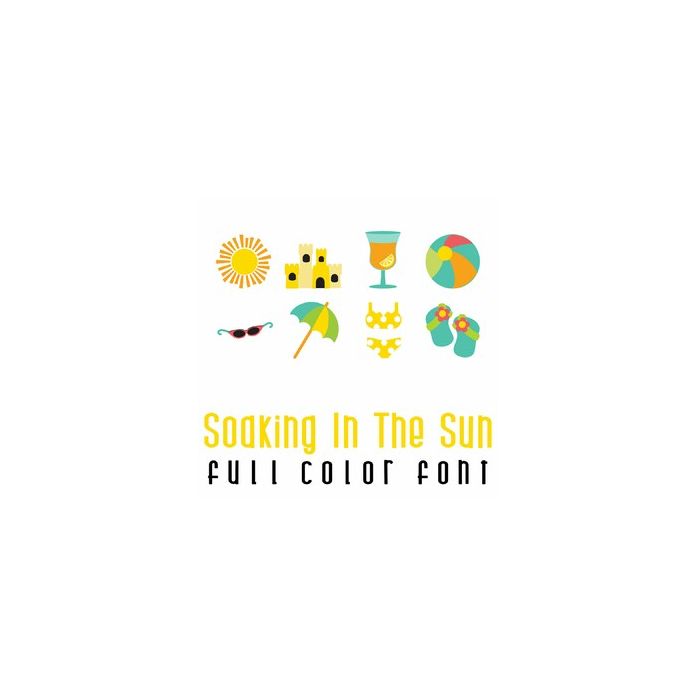
This adorable full color doodlebat font features fun beachy imagery. Perfect for cards, crafts, gifts, decor, scrap book pages, planner stickers and more!